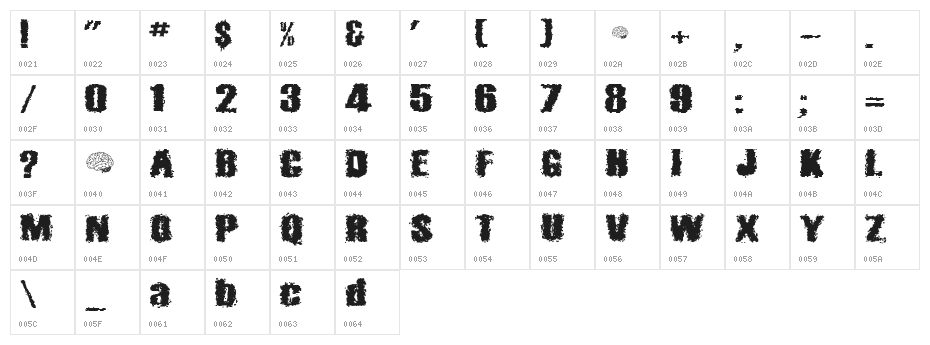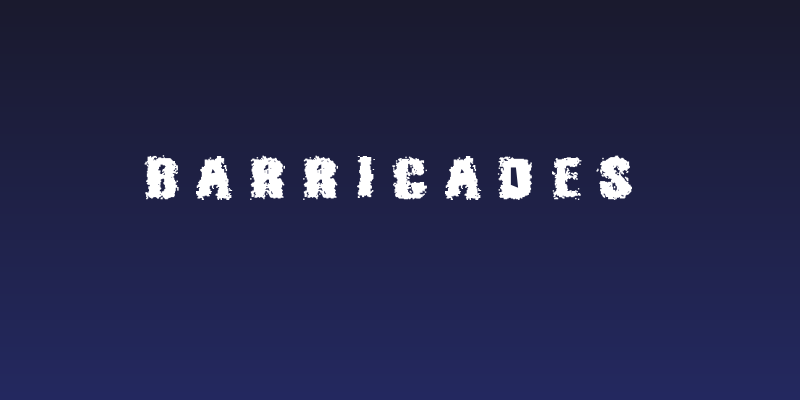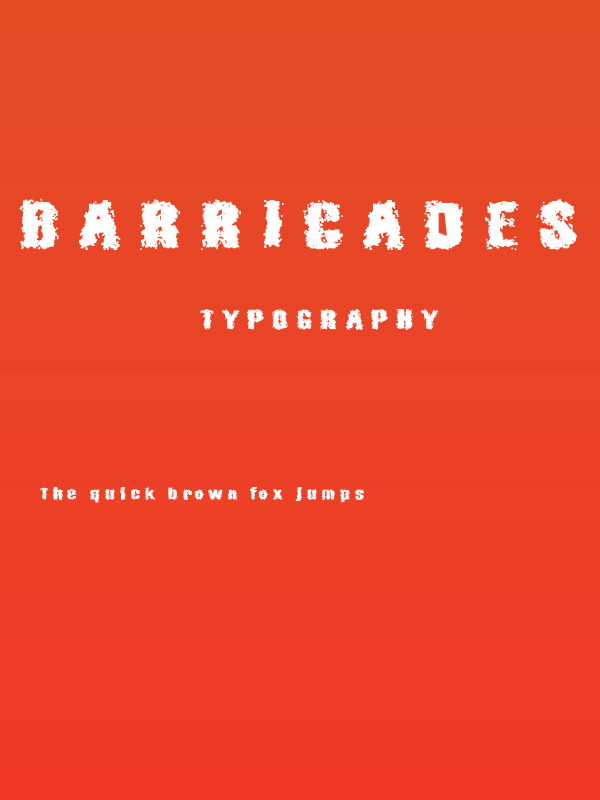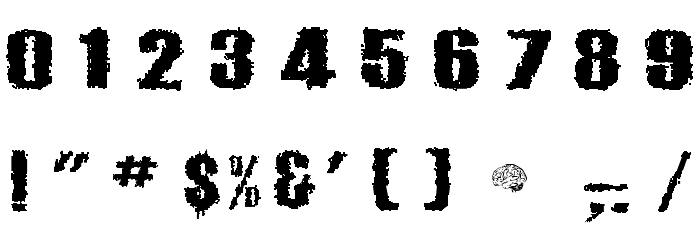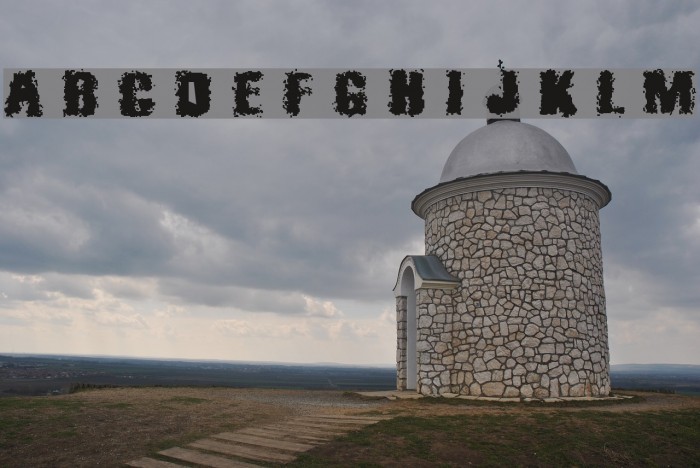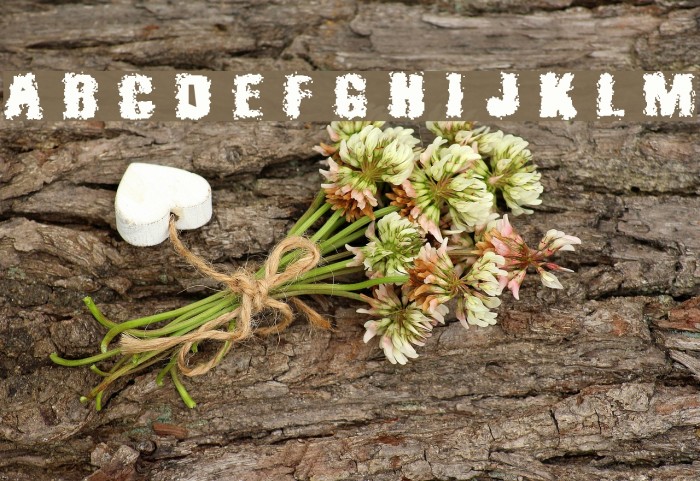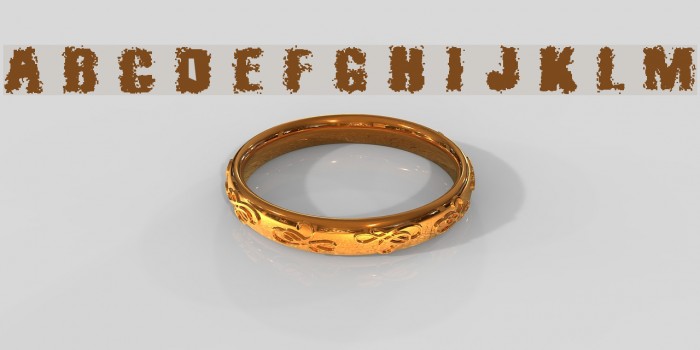
Barricades Font
Barricades Description
This font features a distressed, grunge style with a rough, textured appearance. Each character appears as if it has been eroded or weathered, giving it a unique, rugged look. The uppercase and lowercase letters maintain a consistent style, with bold, thick strokes that are irregular and uneven, adding to the overall distressed effect. The numerals and special characters follow the same design, ensuring a cohesive appearance across all elements. This font's distinct style makes it ideal for projects that require a bold, eye-catching aesthetic with a touch of edginess.
| Overall Style | Grunge, Edgy |
| Proposed Projects | Ideal for album covers, posters, urban-themed designs, and branding that requires a bold, edgy look. |